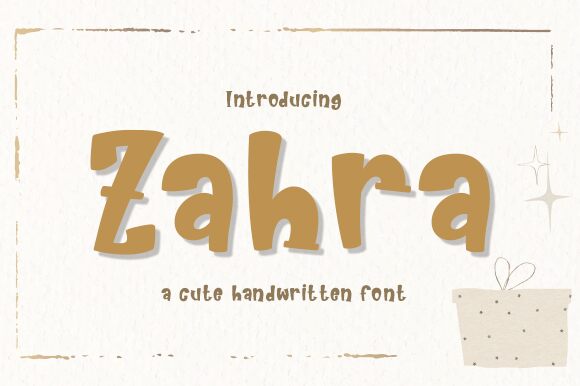
Zahra is the perfect display font for any project that needs a touch of cuteness and playfulness. Designed by Nirmala Creative, this bold typeface features a charming cartoon style that will add personality to your designs. Whether you're creating graphics for a children's book or designing a logo for a pet store, Zahra is sure to make your work stand out. The bold weight of this font ensures that your message will be clear and easy to read, while its playful design adds an element of fun to any project. Add some character to your next design with Zahra!